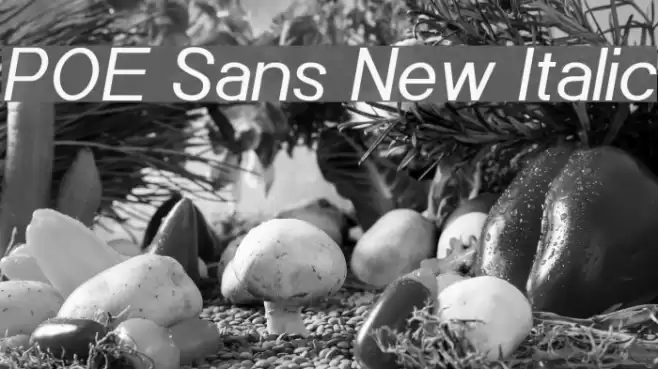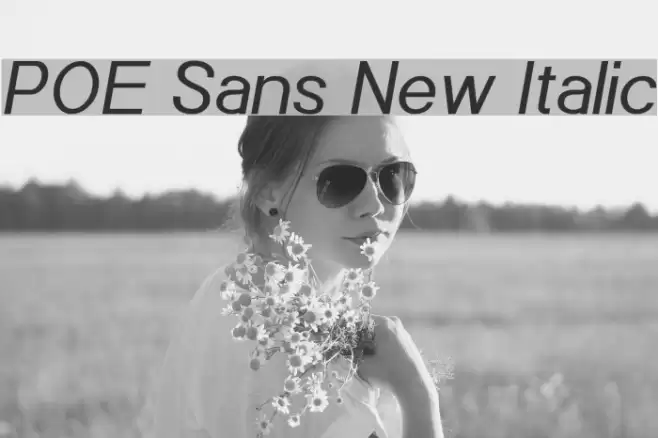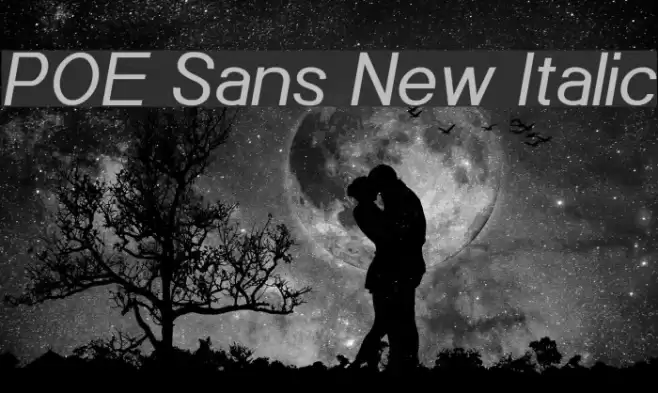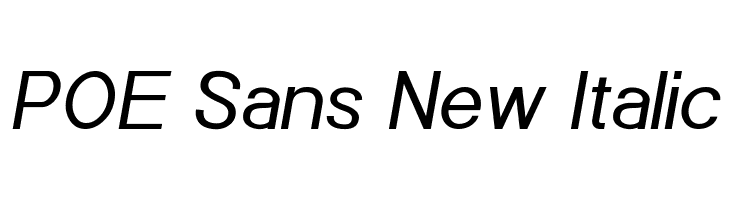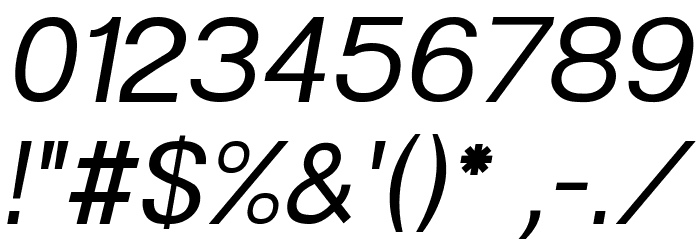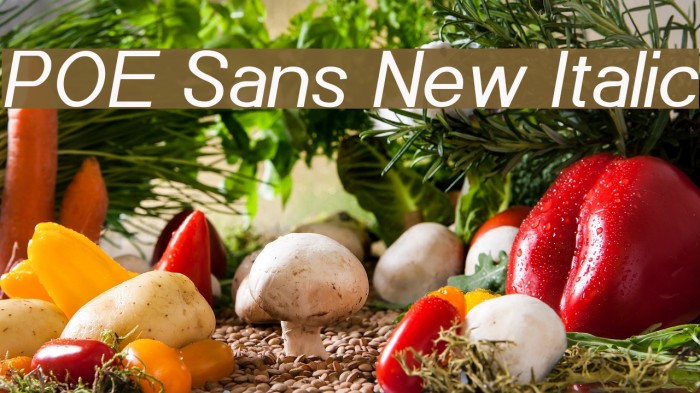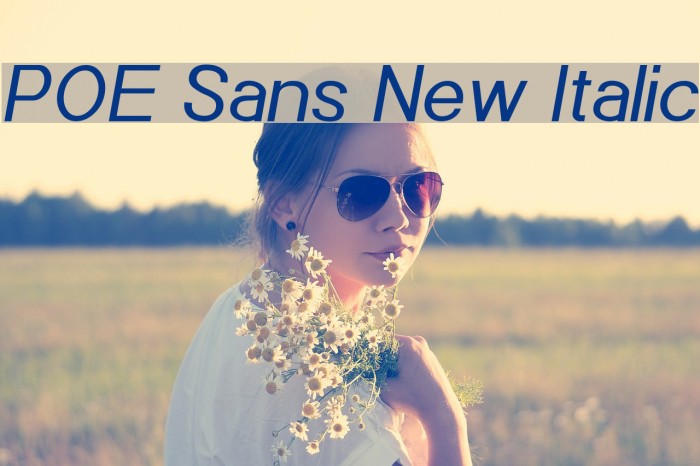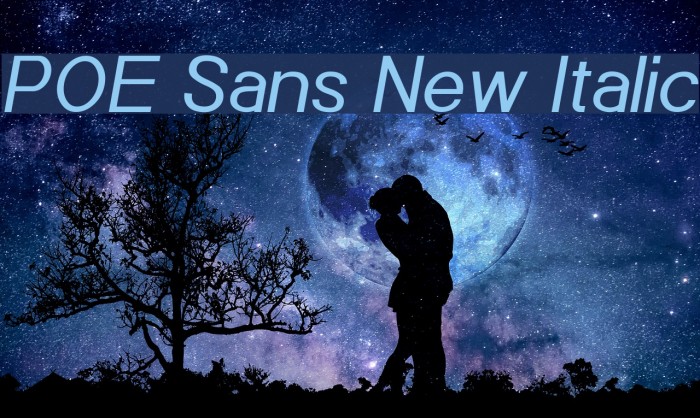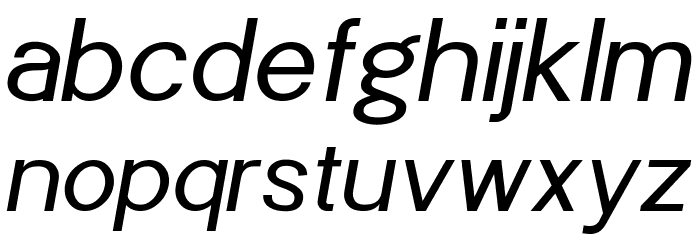
POE Sans New Italic Font
POE Sans New Italic Description
This font features a sleek and modern sans-serif design with a distinct italic style. The characters are slightly slanted, giving a dynamic and forward-moving appearance. The strokes are uniform in thickness, providing a clean and contemporary look. The uppercase letters are bold and assertive, while the lowercase letters maintain a consistent flow. The numerals are clear and easy to read, making them suitable for various applications. Special characters are well-defined, enhancing the font's versatility. Overall, this font exudes a sense of professionalism and modernity, making it ideal for both digital and print media.
A modern, italic sans-serif font with uniform stroke thickness and a dynamic appearance from Uncategorized fonts.
- Proposed Projects: Ideal for branding, advertising, web design, and editorial layouts where a modern and professional look is desired.